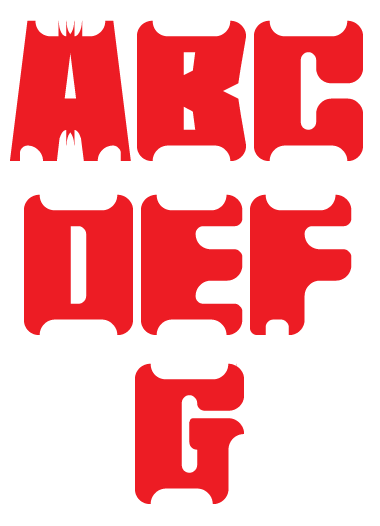
Avico
V. Sarela (Yautja)
A bold font inspired by Korg's logo.
Nice! (cloned from Heavy Royale?)
Thanks! Not cloned.
You guys are sooo very good at this type-making thing.
Satisfyingly chunky! 10/10
Don't know what Avico means, but it sure firs :) 10/10!
@architaraz: me neither :) it's just a word I made up.
A bold face with brave angles. The B,K,R,X,Y,3,8 are excellent. 10/10
Very bold! And this is different from others...
@Yautja: i also began a remix, but i don't think i'll finish it. Must concentrate on my book and more personal stuff. i only made the 7 first capitals. Here's a sample showing them :
@AFT: Nice! Hope you'll have time to continue on it later.